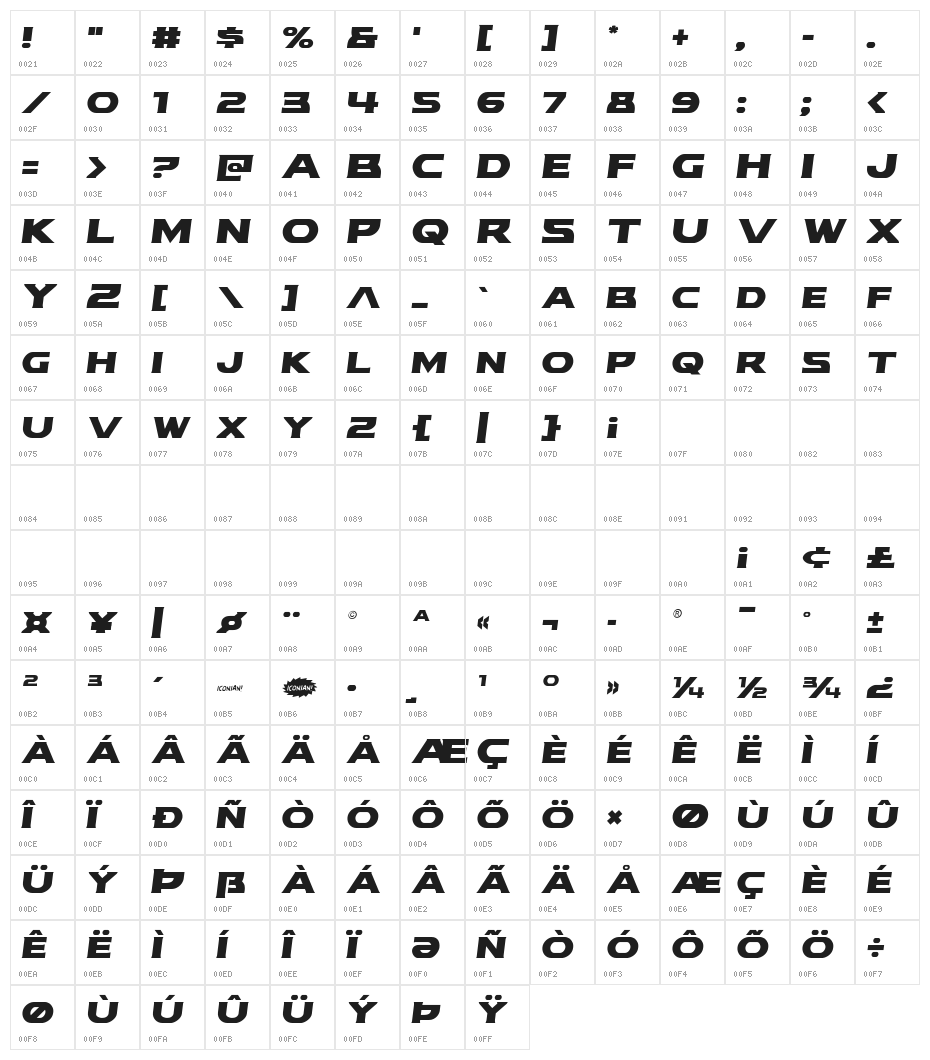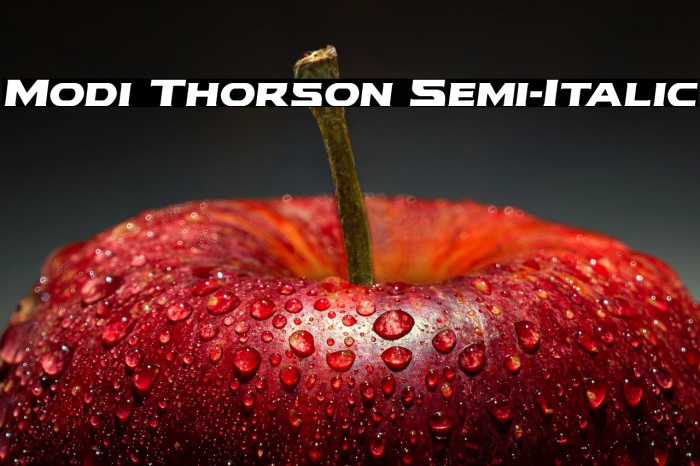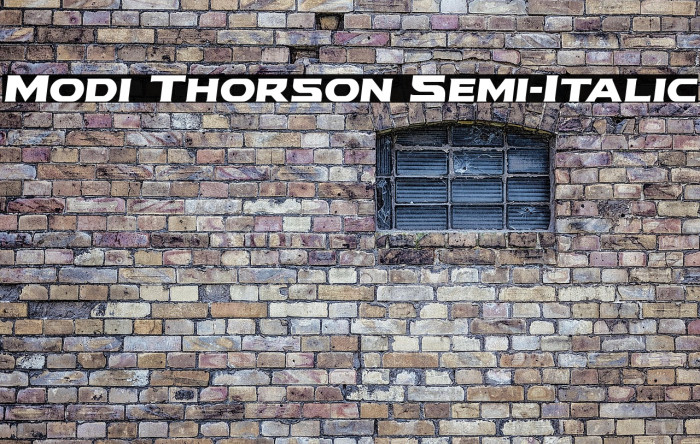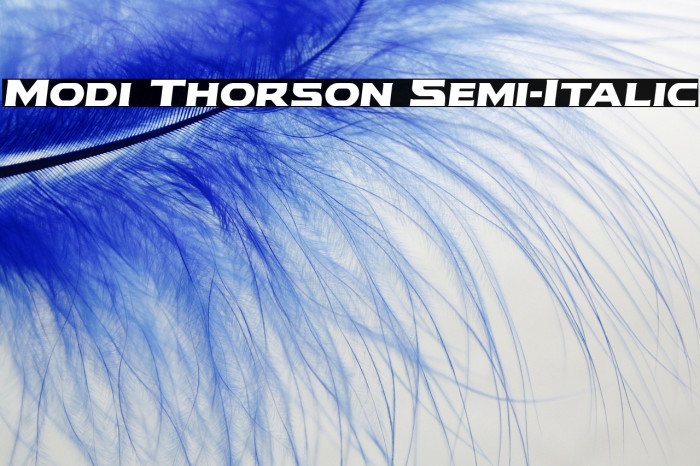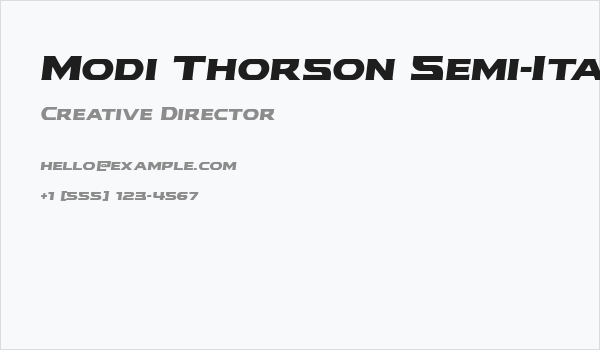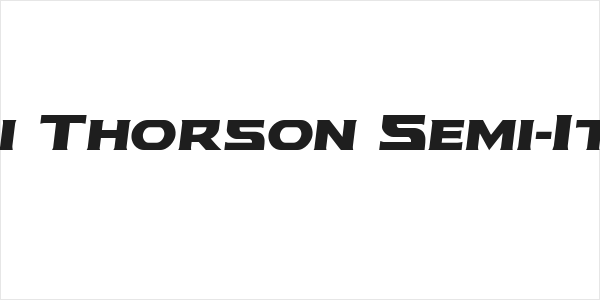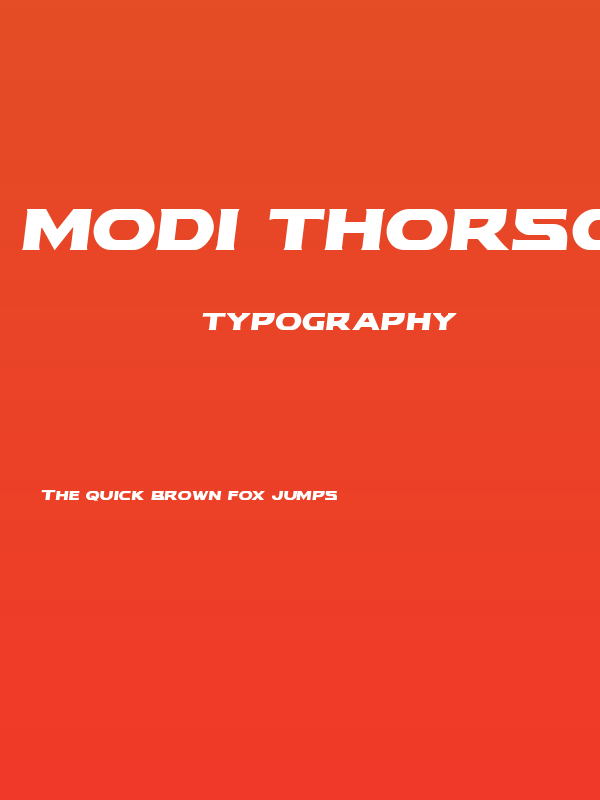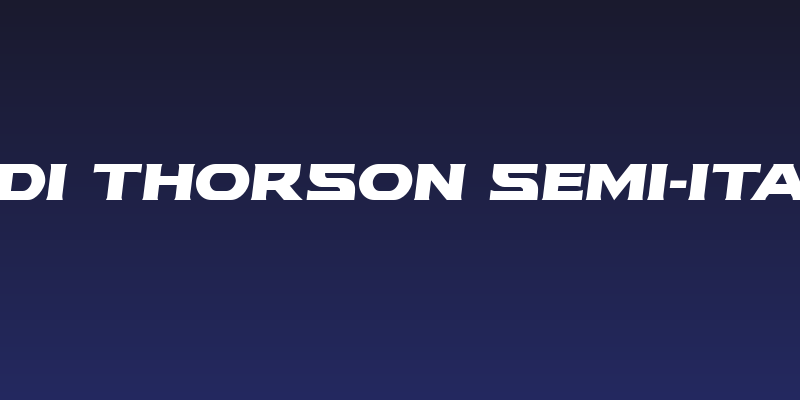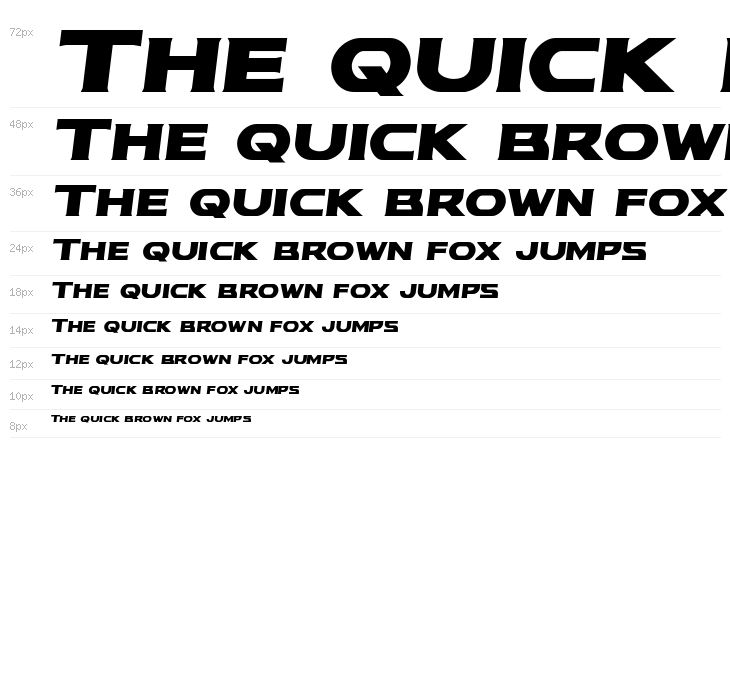
Modi Thorson Semi-Italic Font
Modi Thorson Semi-Italic Description
This font exhibits a bold and dynamic style with a semi-italic slant, giving it a sense of motion and energy. The characters are well-defined with sharp angles and a modern aesthetic. The uppercase letters are strong and commanding, while the lowercase letters maintain a consistent style, ensuring readability. The numerals are equally bold, matching the overall design. Special characters are included, maintaining the font's cohesive look. This font is ideal for projects that require a contemporary and impactful appearance.
Proposed ProjectsIdeal for branding, sports team logos, dynamic posters, and modern web design.